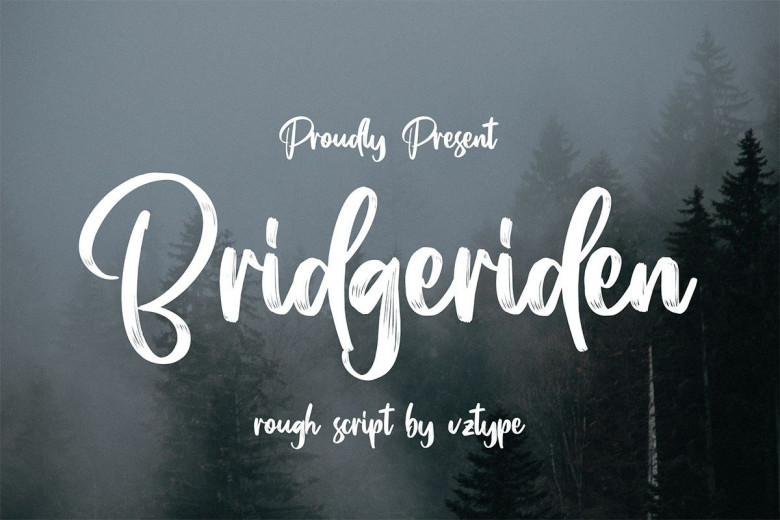
Bridgeriden Brush Script Font
Introducing Bridgeriden Brush Script Font is a beautiful brush script created with brush pen to give a great contrast between thick and thin curves. Drawn, Scanned & Vectorized from paper to screen.
This is suitable for quotes, invitations, stationery, wedding design, logos, watermarks on photography, signatures, branding, advertisement, album covers, business cards, clothing, magazines, posters, and more! Also support multilingual.